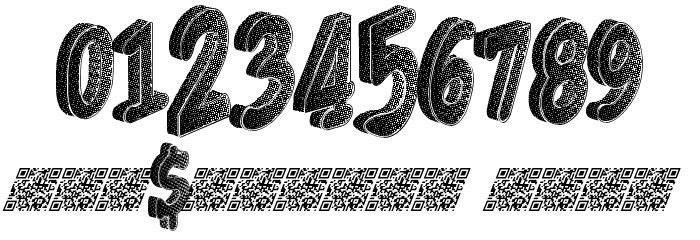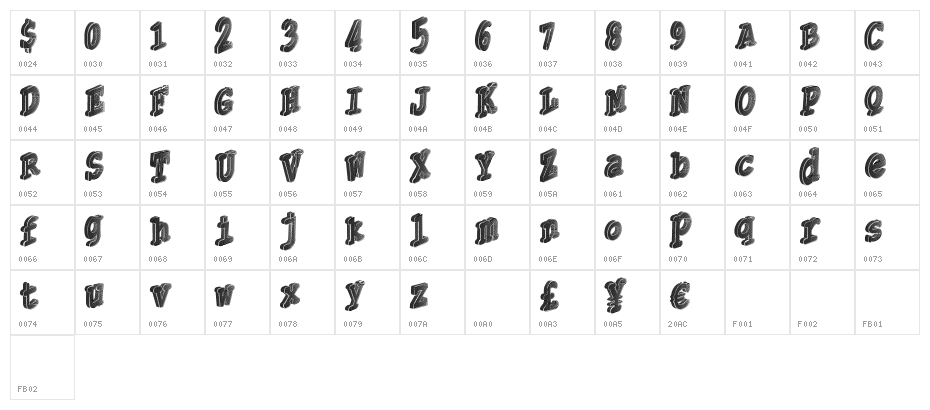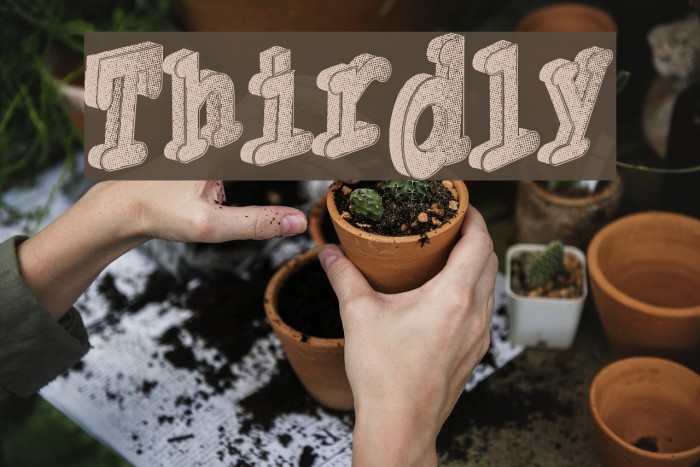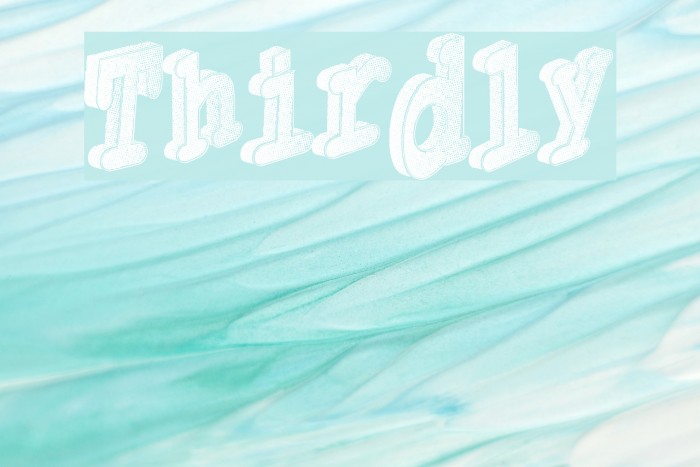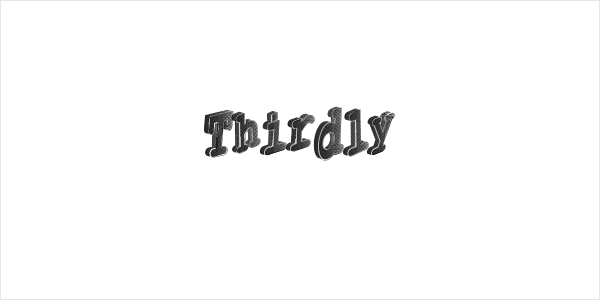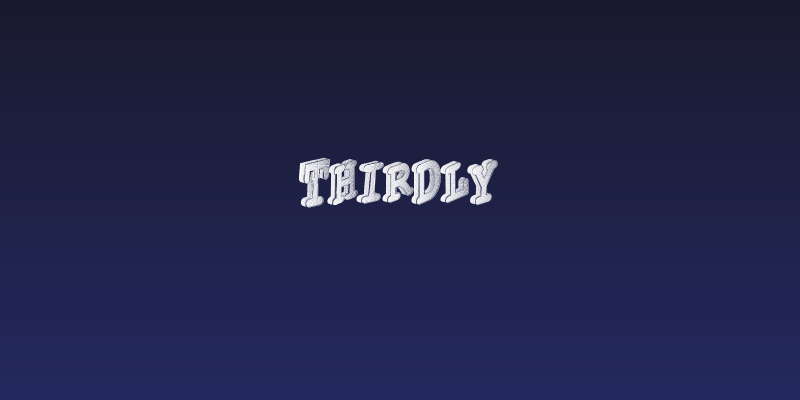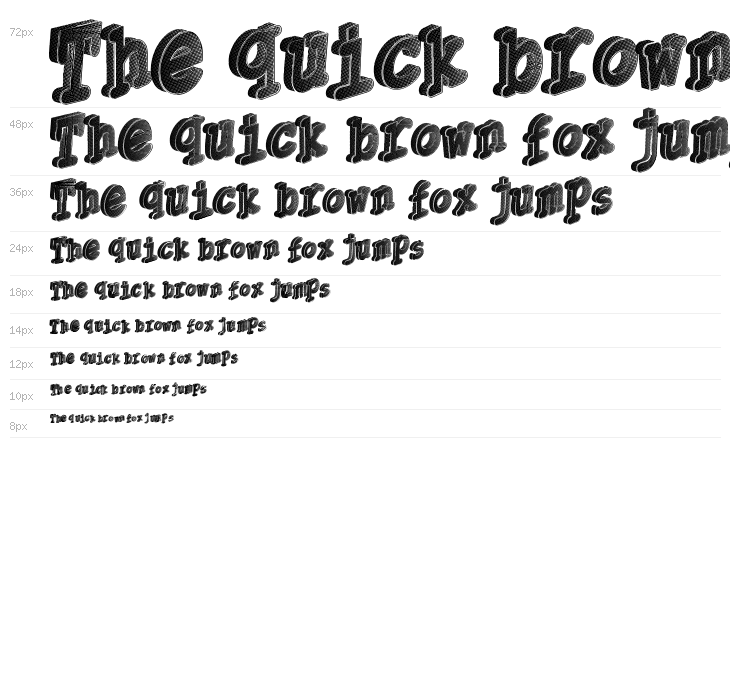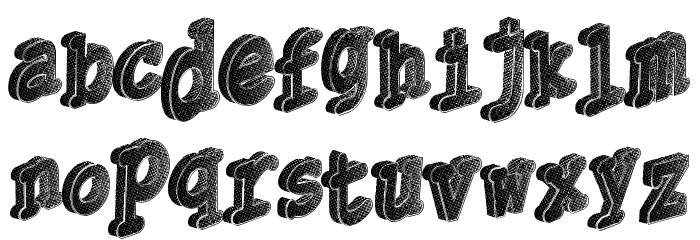
Thirdly Font
Thirdly Description
This font features a bold, three-dimensional style with a dotted texture that adds depth and visual interest. The characters are robust and slightly condensed, with a playful yet structured appearance. Each letter and number has a shadow effect, enhancing the 3D illusion. The font's unique texture and boldness make it stand out, suitable for eye-catching designs. The special characters maintain the same stylistic elements, ensuring consistency across all glyphs.